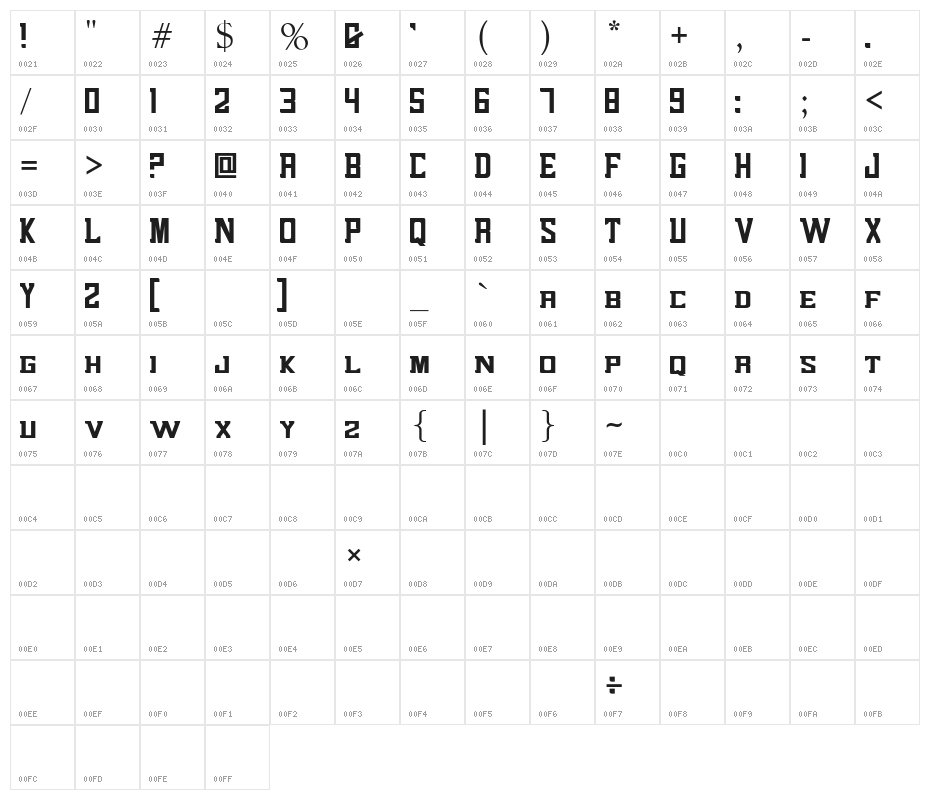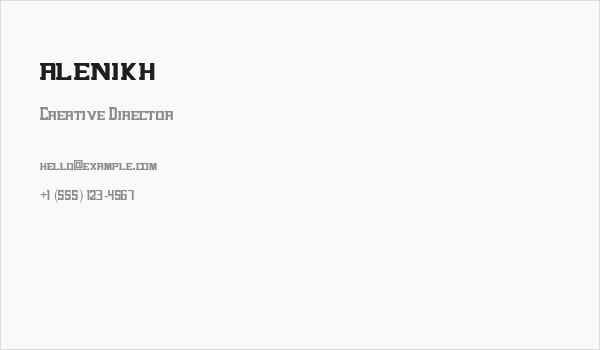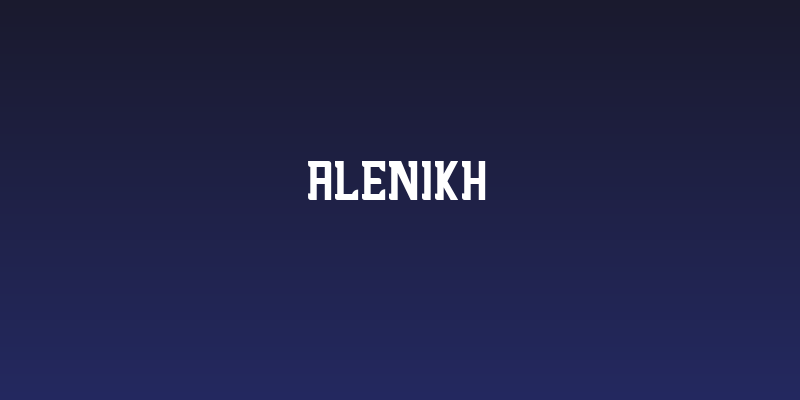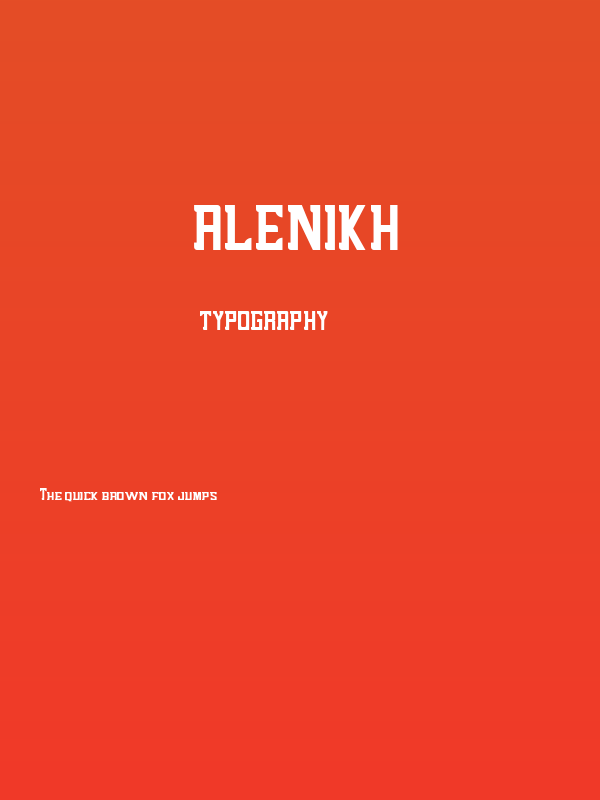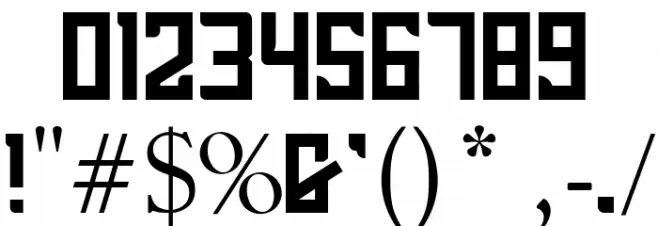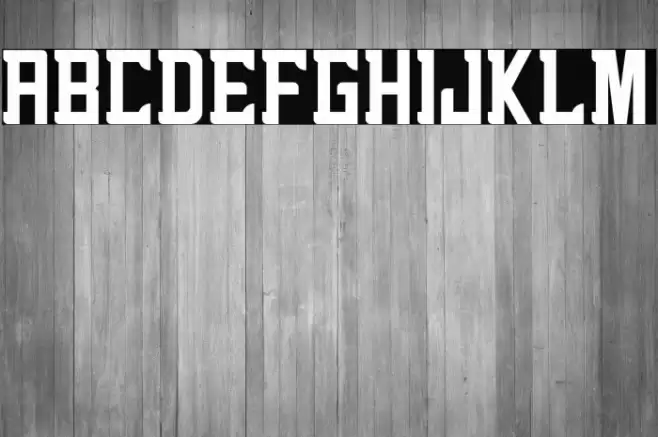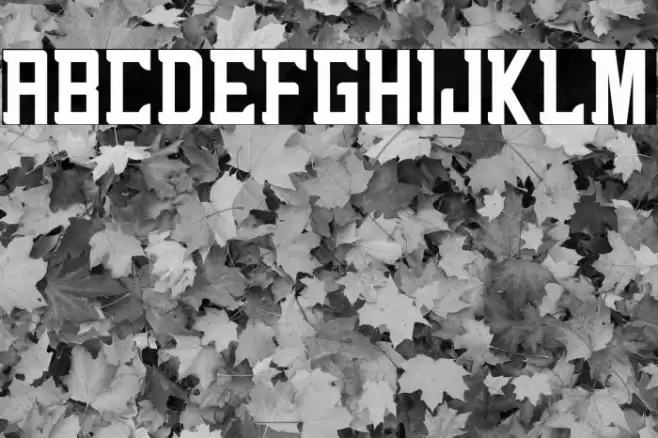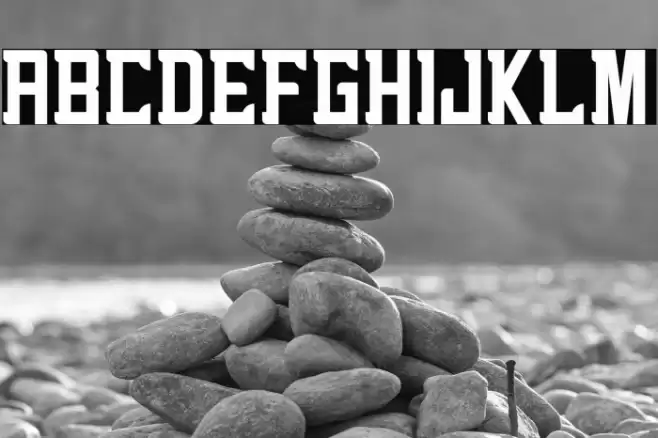
alenikh Font
alenikh Description
This font features a bold and impactful design with strong geometric shapes and a modern aesthetic. The uppercase letters are characterized by their blocky, angular forms, which convey a sense of strength and stability. The lowercase letters maintain this robust style, ensuring consistency throughout the typeface. The numerals are equally bold, making them highly legible and suitable for attention-grabbing displays. Special characters are designed to match the overall boldness, adding versatility to the font's use. The font's design is reminiscent of industrial or sports-themed styles, making it ideal for projects that require a commanding presence.